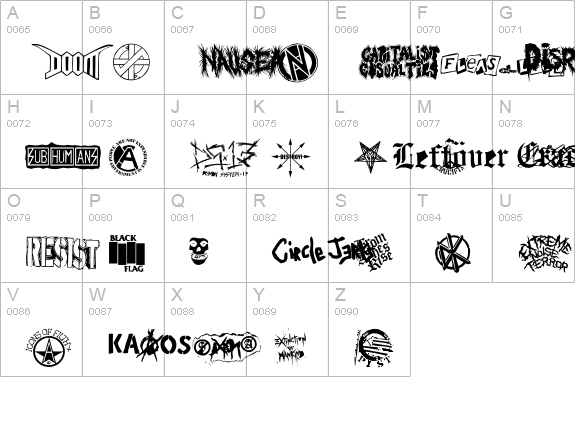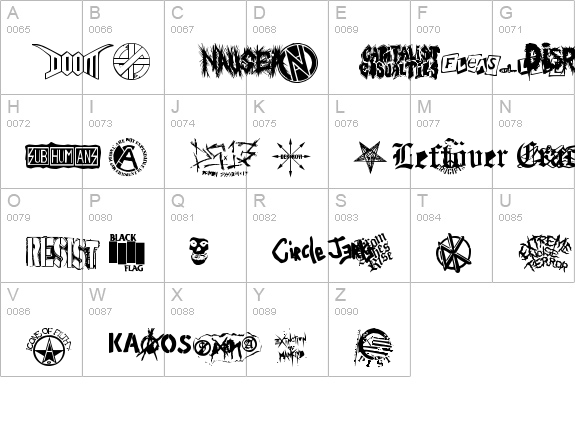
punk rawk dingbatz Font Details
Punk Rawk Dingbatz font is a rebellious and edgy typeface that perfectly captures the raw energy and attitude of punk rock music. With its bold and grungy design, this font is sure to make a statement in any project. Featuring a collection of unique dingbat characters inspired by punk rock culture, this font adds a touch of rock 'n' roll flair to your designs. Whether you're creating posters, album covers, or social media graphics, Punk Rawk Dingbatz font will give your work an unmistakable edge. Best of all, Punk Rawk Dingbatz font is available for free download at FontsMarket.com. So go ahead and unleash your inner punk rocker with this dynamic and expressive font. Let your creativity run wild and make a bold statement with Punk Rawk Dingbatz font today!